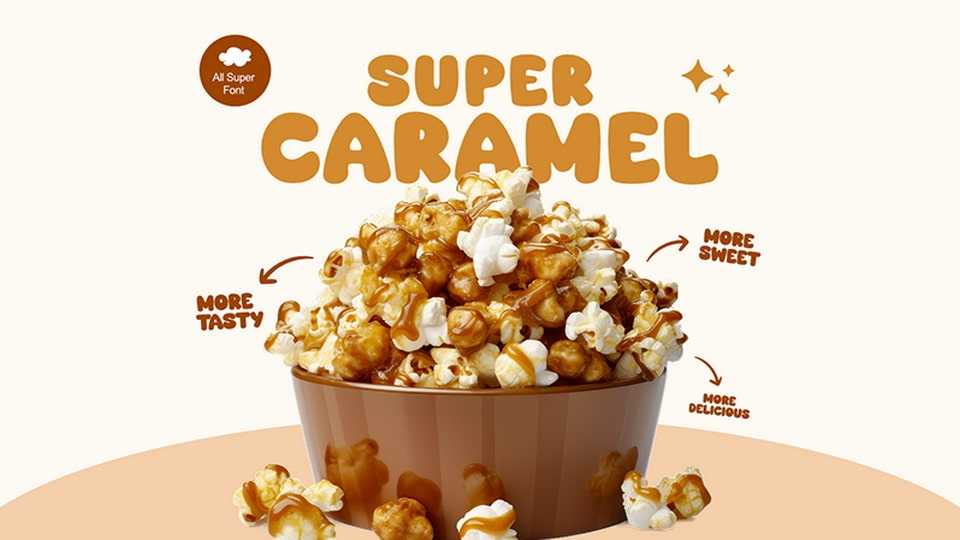
Download Super Caramel font, a playful, rounded cartoon typeface bursting with fun and energy. It features soft, bouncy letterforms that are full of life.